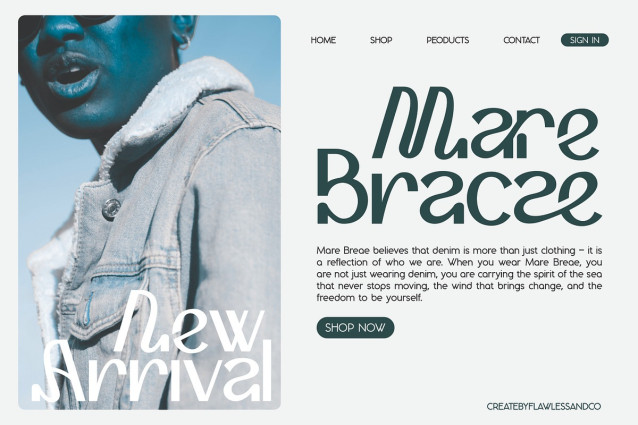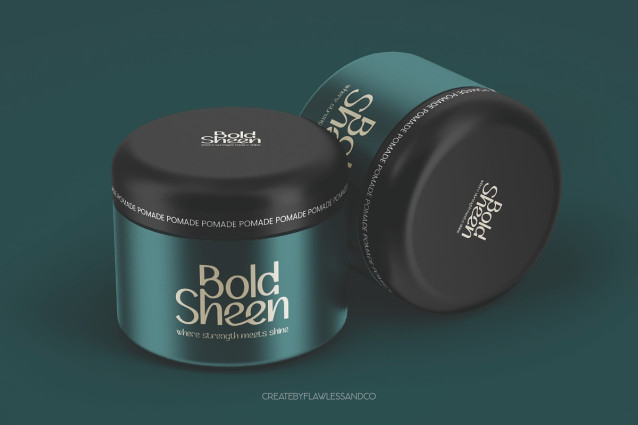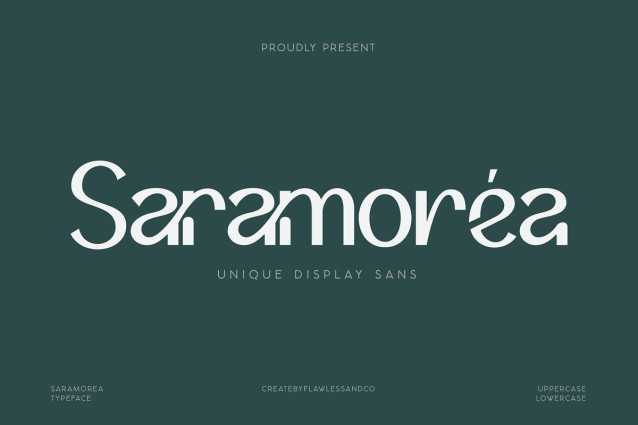
Saramorea Font
Saramorea Font is a bold sans serif serif font that blends expressive character with artistic elegance. Inspired by classic editorial aesthetics with a modern twist, Saramorea stands out with its high contrast, wide letterforms, and stylish personality.
Perfect for high-impact design projects such as fashion editorials, luxury branding, posters, and creative headlines, Saramorea brings a bold, sophisticated presence to any layout. Every letter is crafted with a balance of strength and grace, making your typography feel both dramatic and refined.
The font includes elegant alternates and unique ligatures, giving you the creative flexibility to add variation and flair to your compositions.